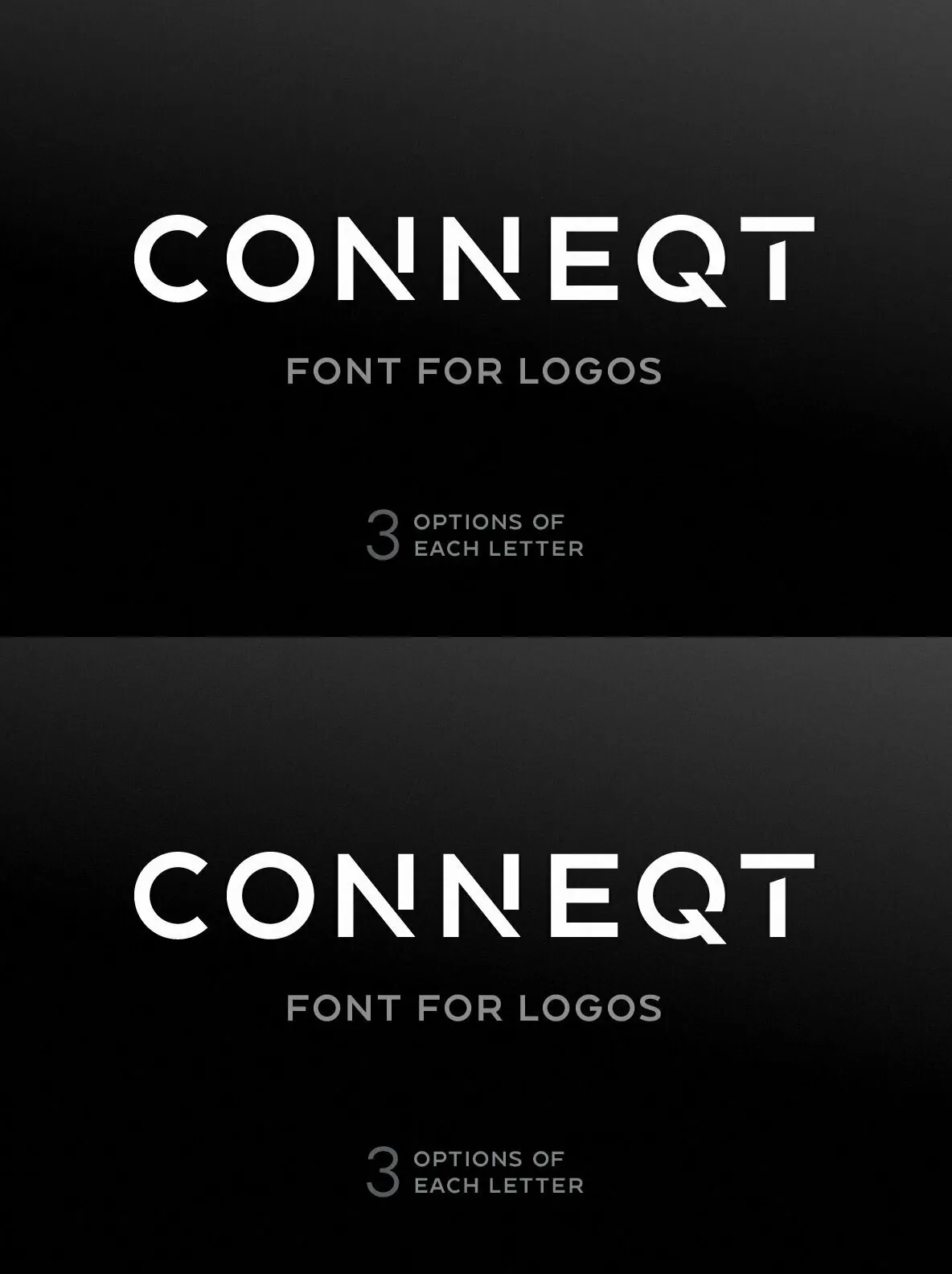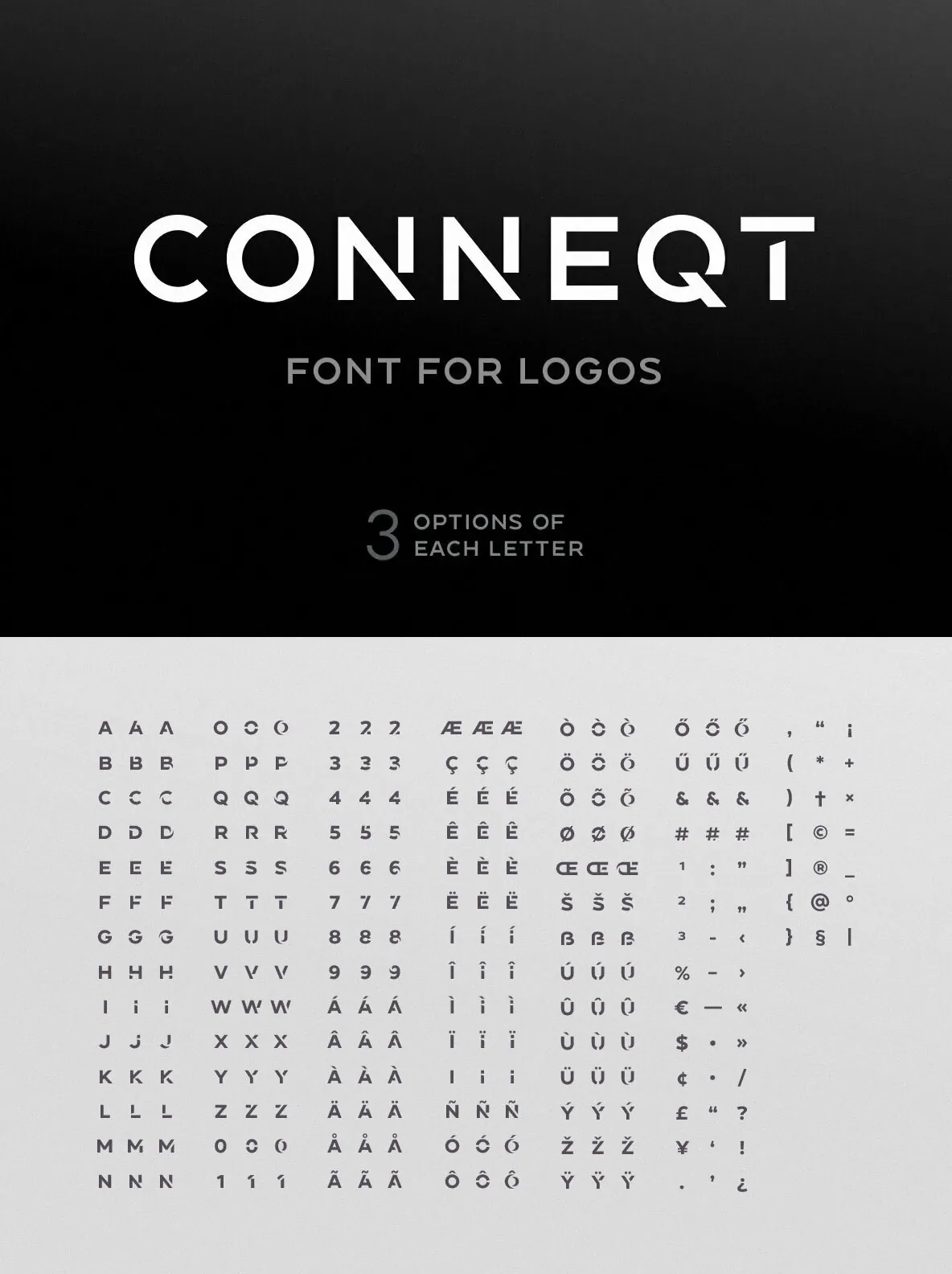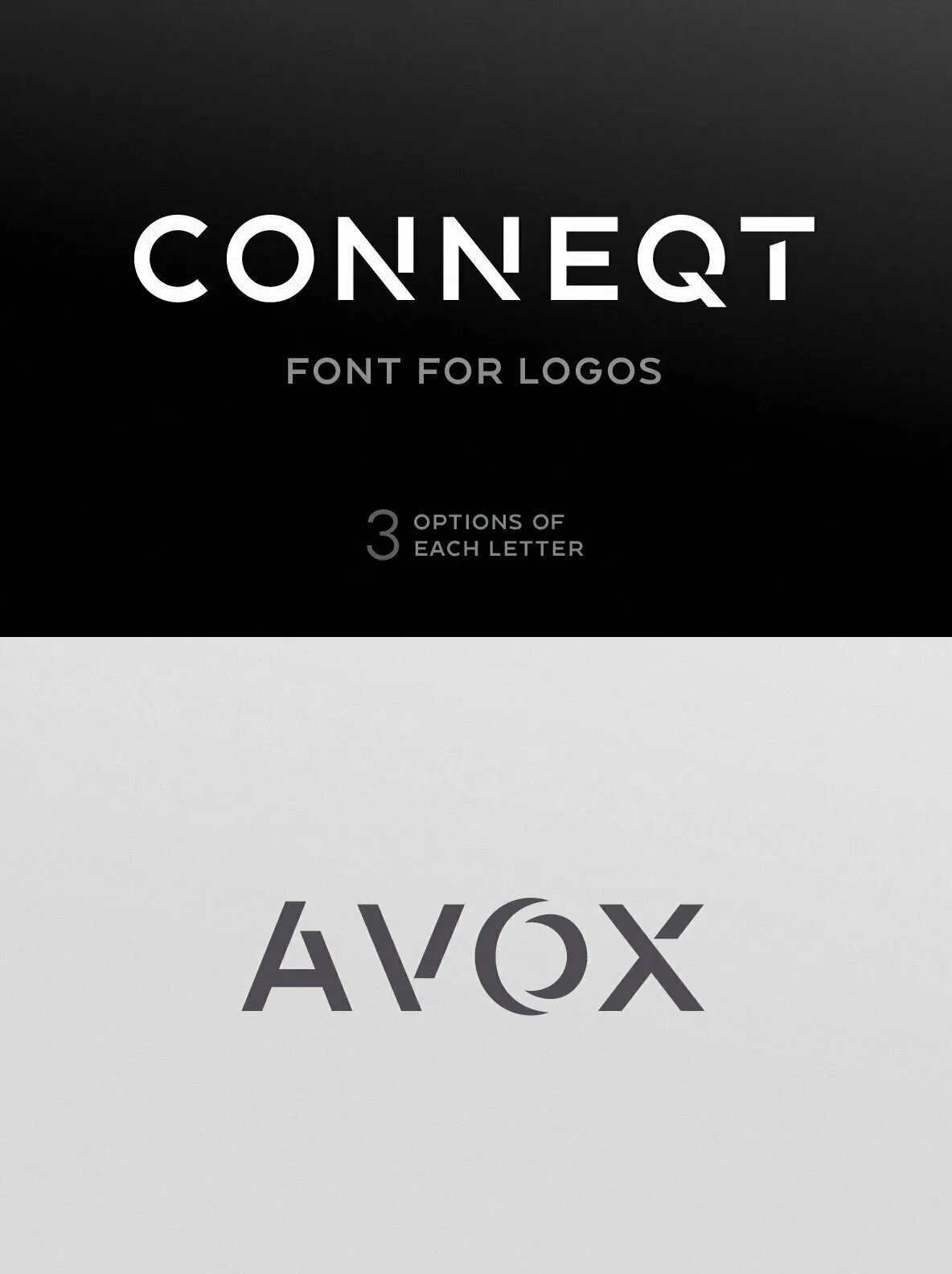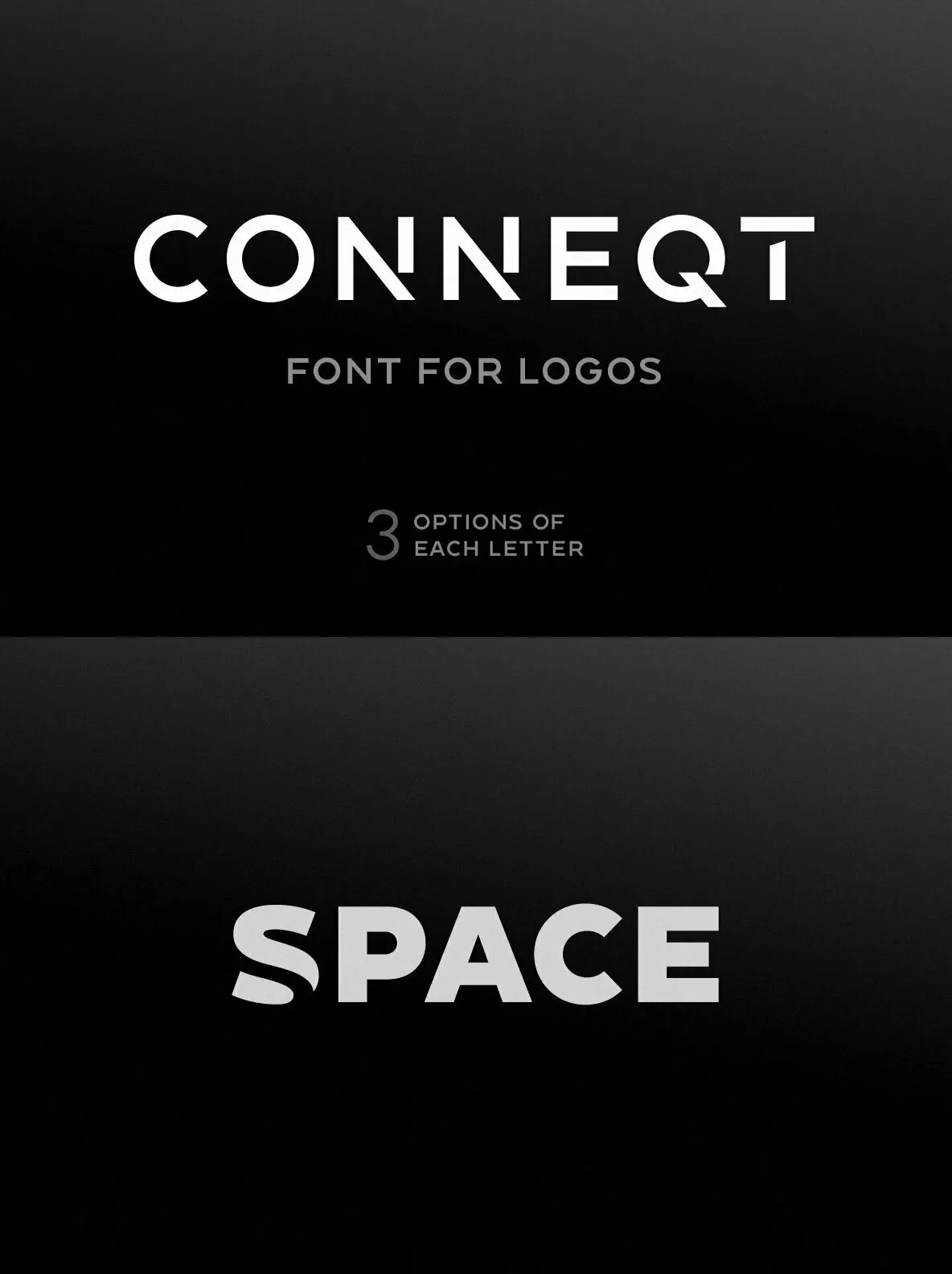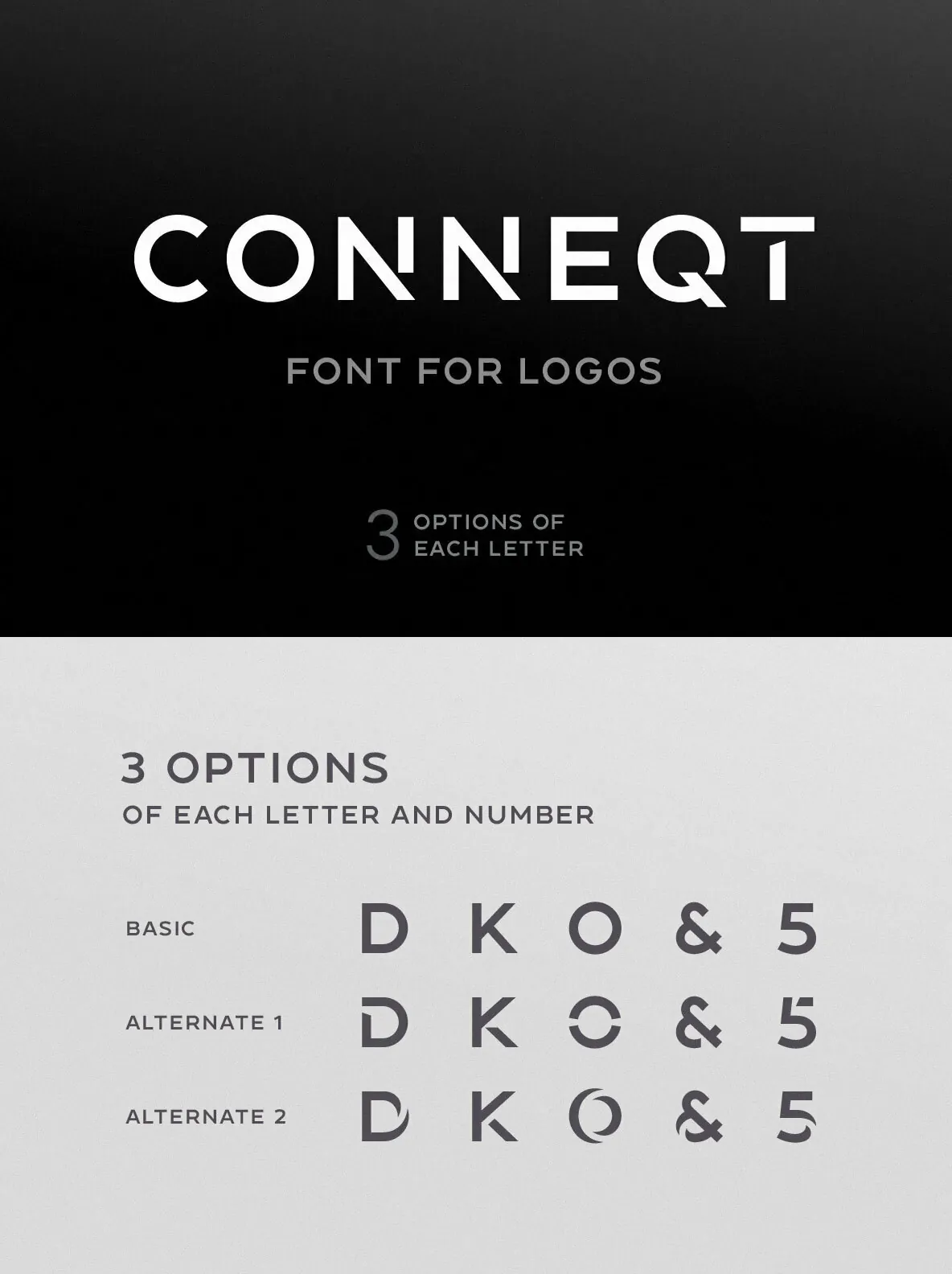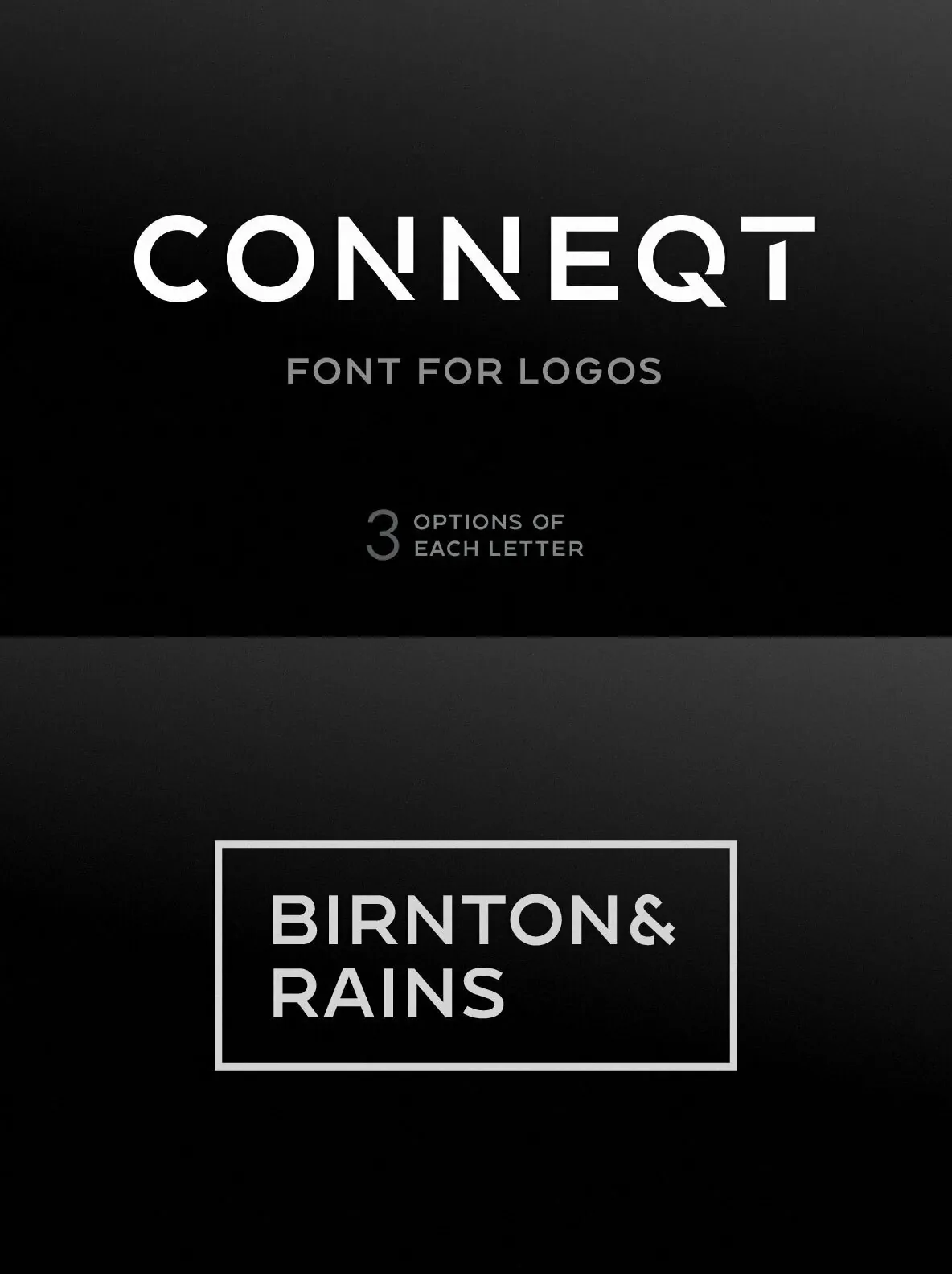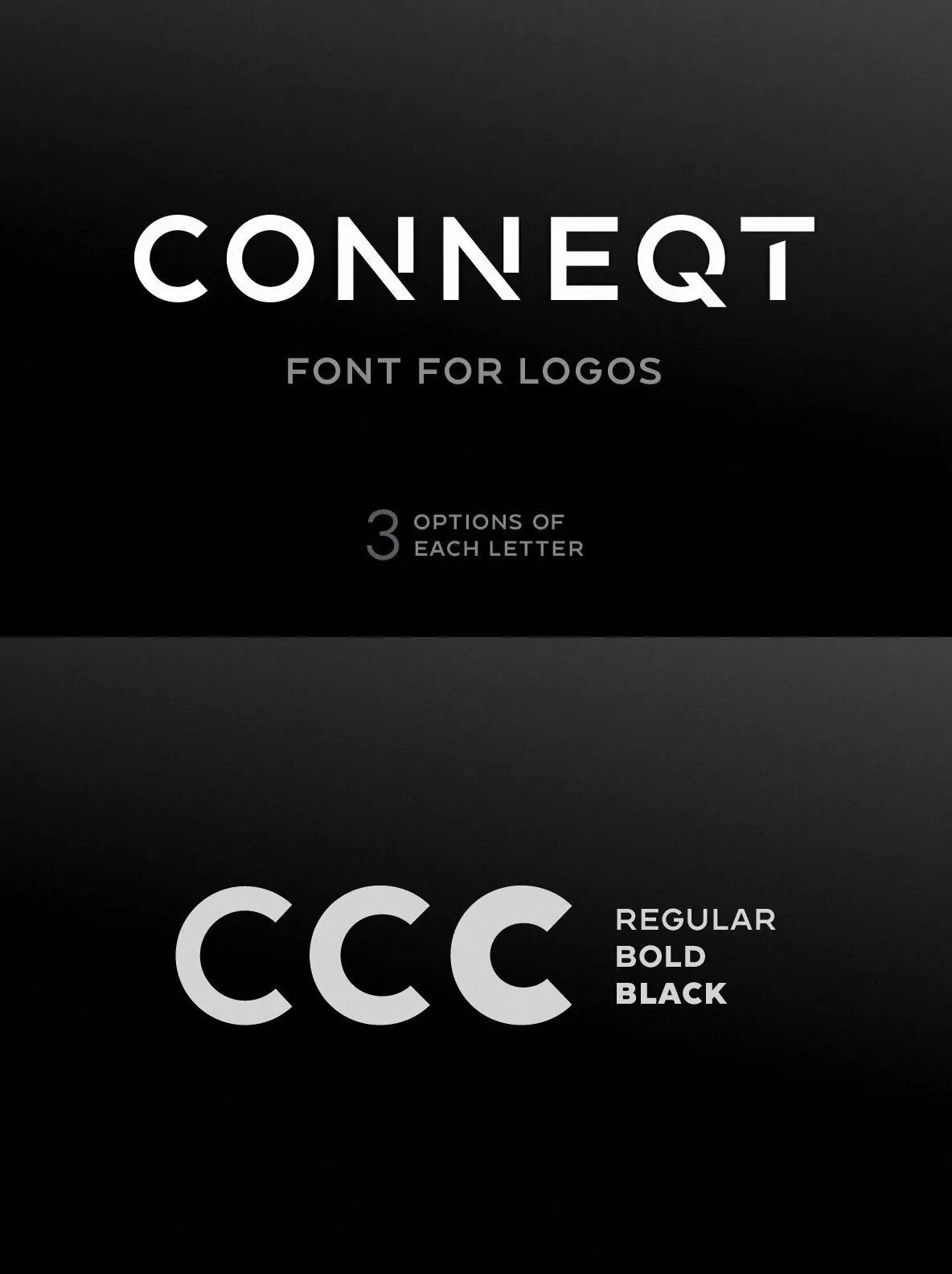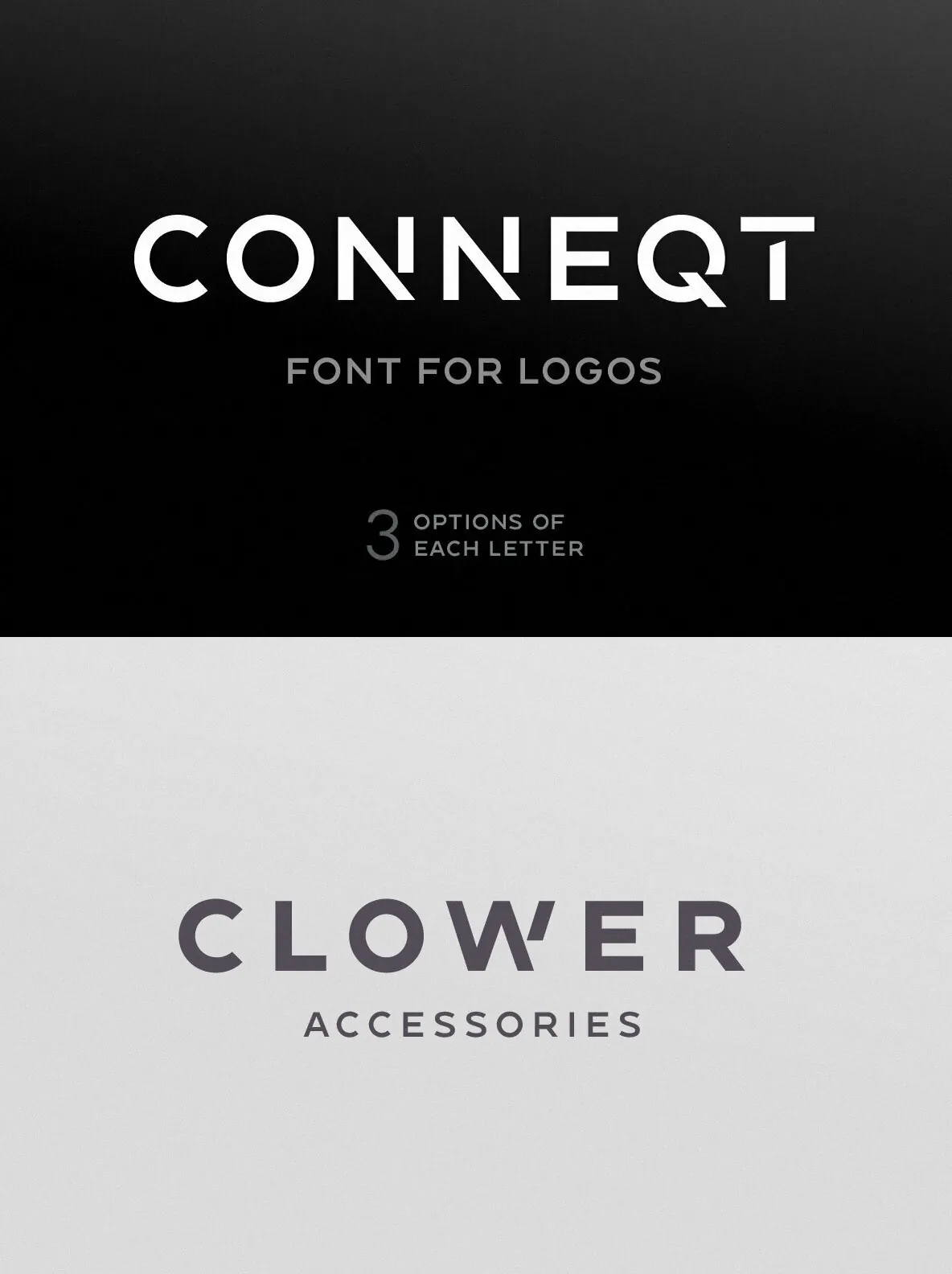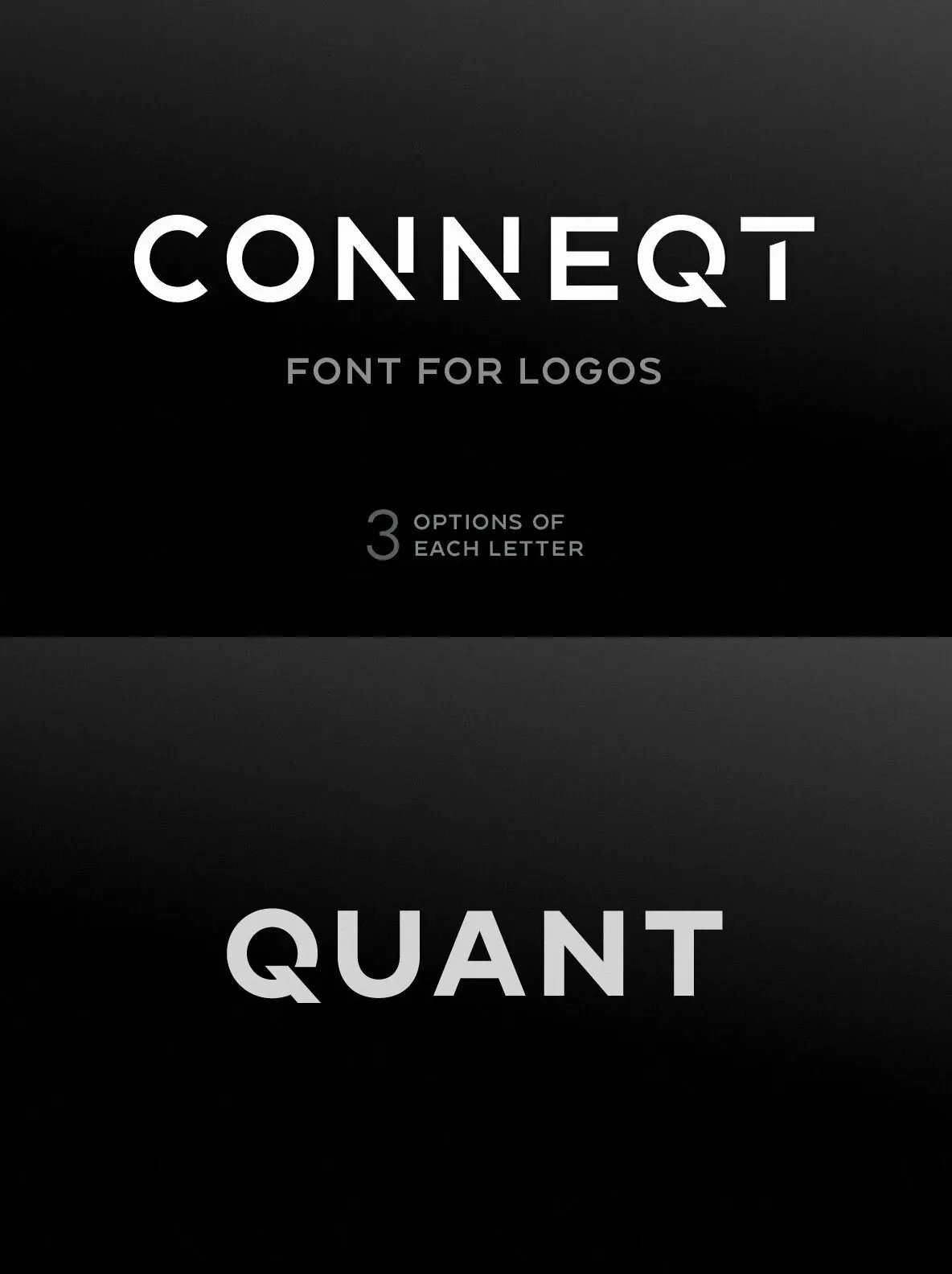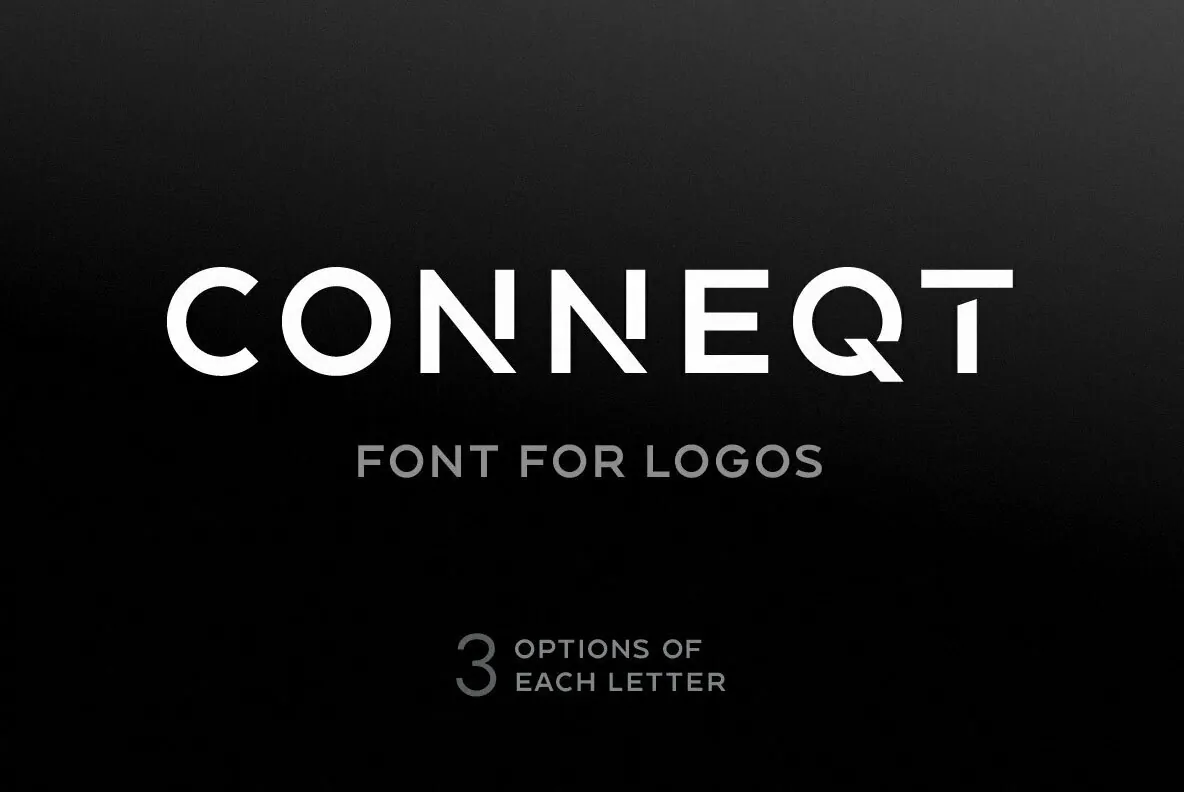
Conneqt Font
Conneqt: A Modern Sans Serif Endeavor
Conneqt is a skillfully crafted sans serif font that offers a synthesis of clarity and style, brought to life by Roman Melikhov. Designed with meticulous attention to detail, this typeface is an ideal choice for those seeking a sleek and contemporary aesthetic in their design projects.
Compelling Features
Streamlined Design
– Presents a clean and straightforward appearance.
Versatile Application
– Suits a variety of contexts from digital platforms to print media.
Conneqt combines functionality with elegance, making it a valuable asset for broad design needs.